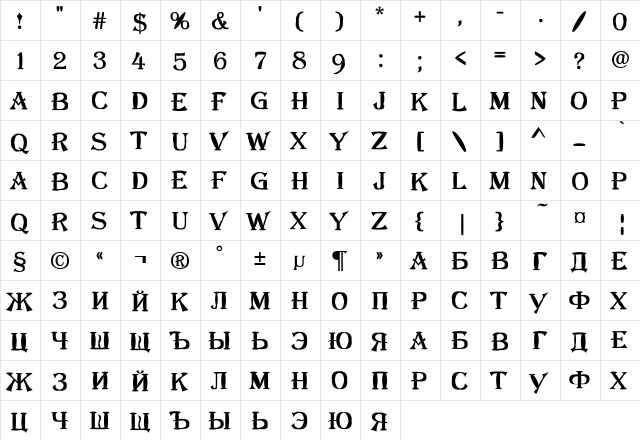
a_AlgeriusBlw Regular Font Preview
a_AlgeriusBlw Regular
a_AlgeriusBlw Regular Font Details
Design Context for a_AlgeriusBlw Typeface
a_AlgeriusBlw takes a measured approach to typography — its balanced proportions and neutral character make it a reliable workhorse for both digital and print work.